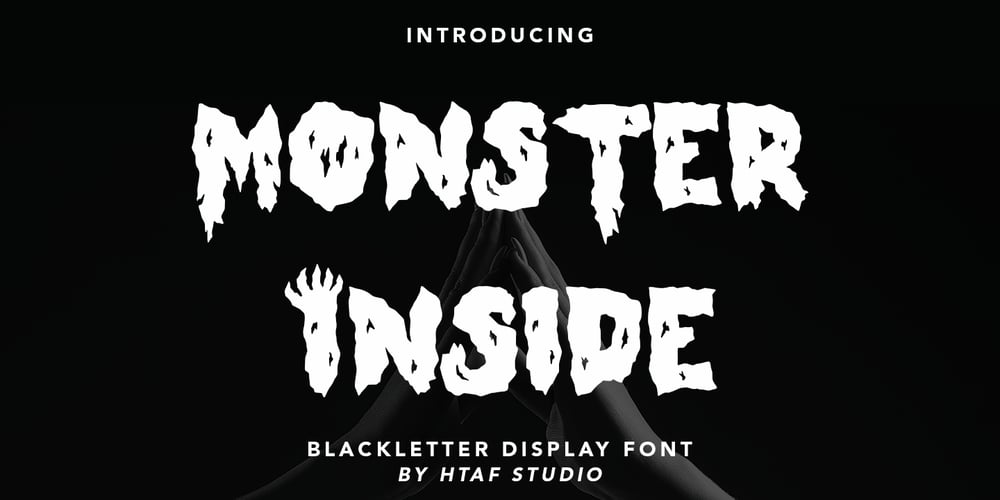
Monster Inside Font Family was designed by Asep Rendi and published by Hatftype. Monster Inside contains 1 styles and family package options. Monster Inside – Blackletter Display Font is a display font that is inspired by gothic and horror style because its shape is very unique and is perfect for any project that you will use with this theme.Monster Inside with opentype features such stylistic alternates, stylistic sets & ligatures good for logotype, poster, badge, book cover, tshirt design, packaging and any more.Features :1.Uppercase & Lowercase 2.Multilingual support 3.Number 4.Symbol 5.Punctuation. 6.Extra Dingbat 7.Support in Mac and Windows OS -Support in design application (photoshop, illustrator, and more).There it is.I really hope you enjoy it.